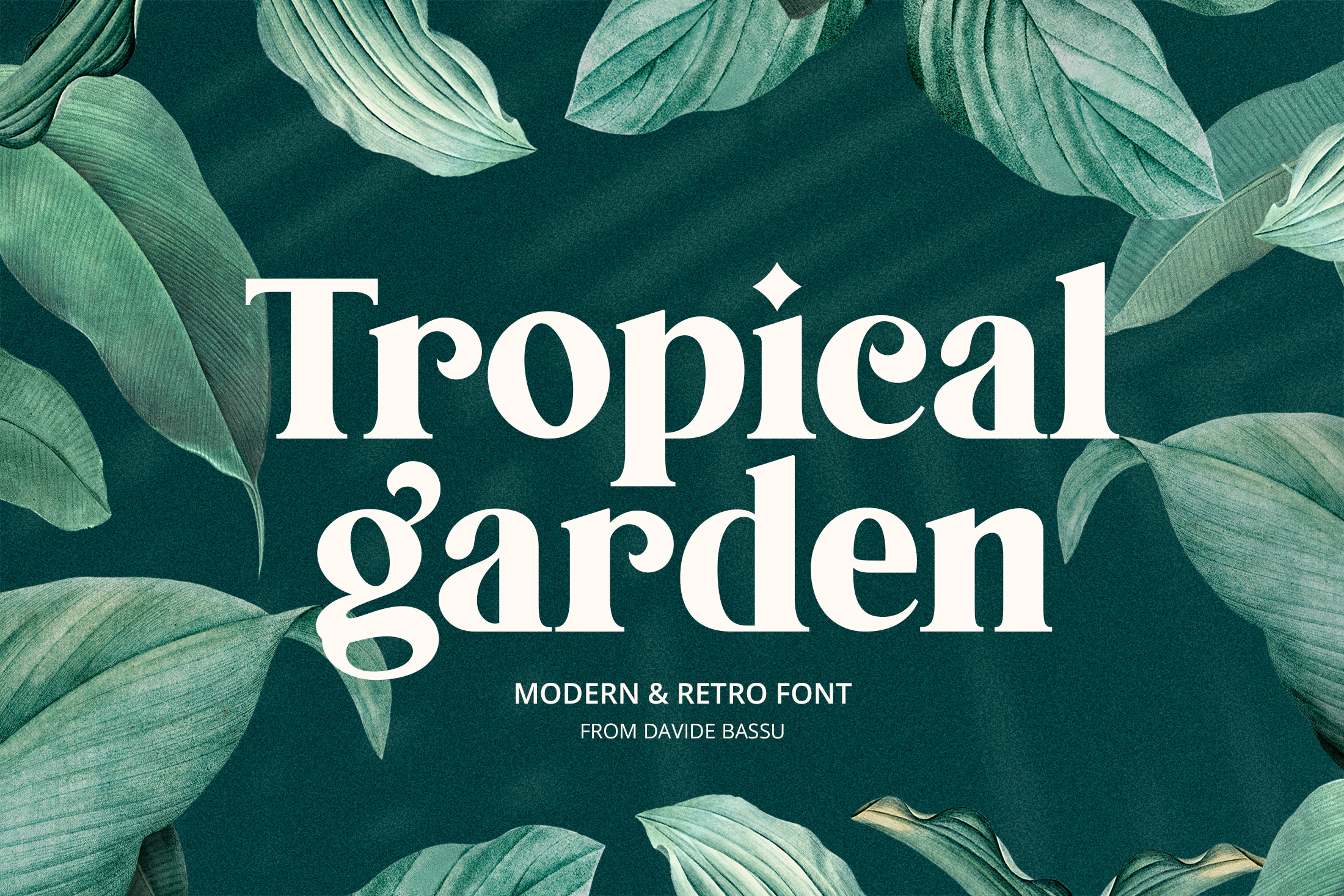
Tropical Garden font
Tropical Garden is an upper and lowercase serif font with elegant and balanced curves and shapes. This font has an old-fashioned style that suite for a wide range of design styles . It comes with stylistic alternates that allows multiple design options and works perfectly for branding, wedding invitations, print materials, social medias and much more…